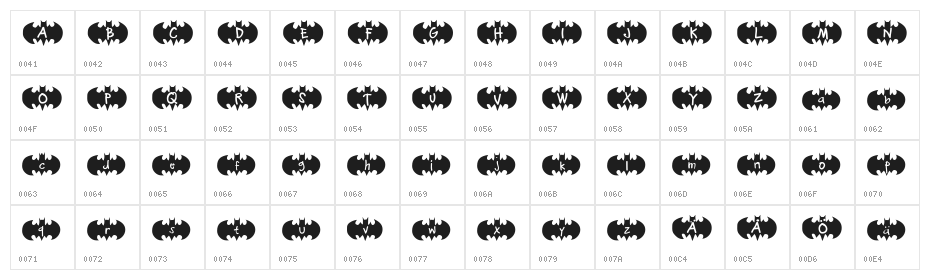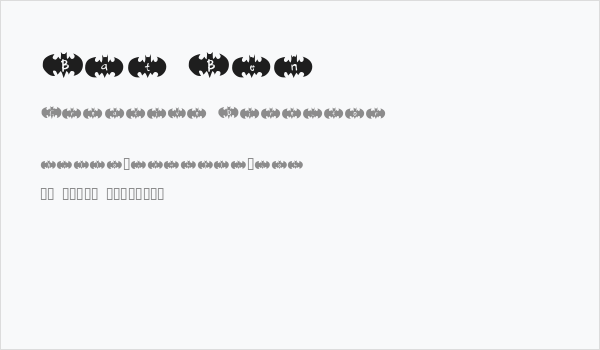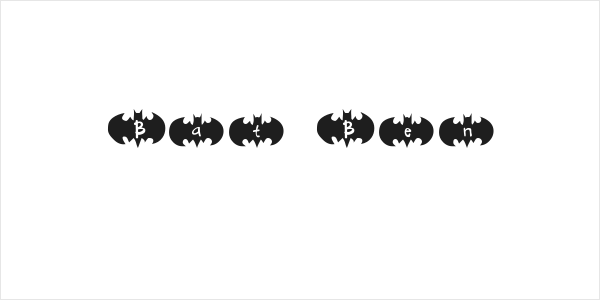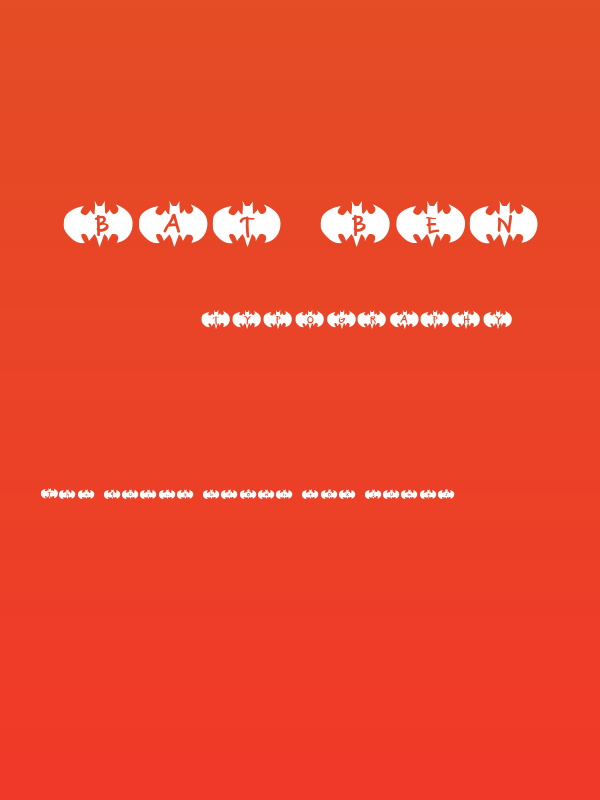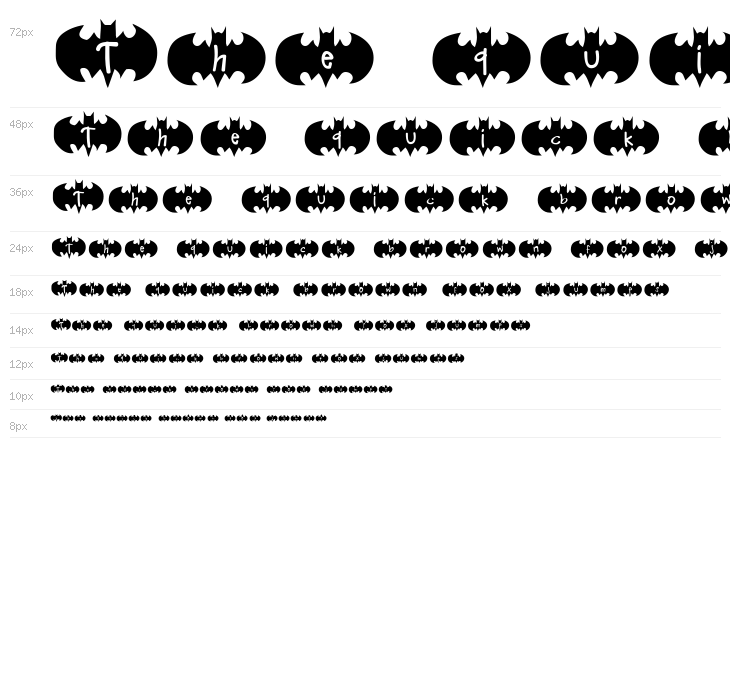
Bat Ben Font
Bat Ben Description
This font features a unique and playful design where each character is embedded within a bat silhouette, creating a striking and thematic appearance. The letters are bold and stylized, with sharp edges that mimic the wings and body of a bat. This design choice gives the font a distinct and memorable look, perfect for projects that require a touch of whimsy or a nod to superhero themes. The uppercase and lowercase letters maintain consistency in style, ensuring readability while maintaining the decorative elements. The numbers and special characters follow the same design principle, ensuring uniformity across all characters.
| Use Case | Headlines, Logos, Themed Events |
| Proposed Projects | Ideal for Halloween-themed designs, comic book covers, party invitations, or any project needing a playful, superhero-inspired touch. |